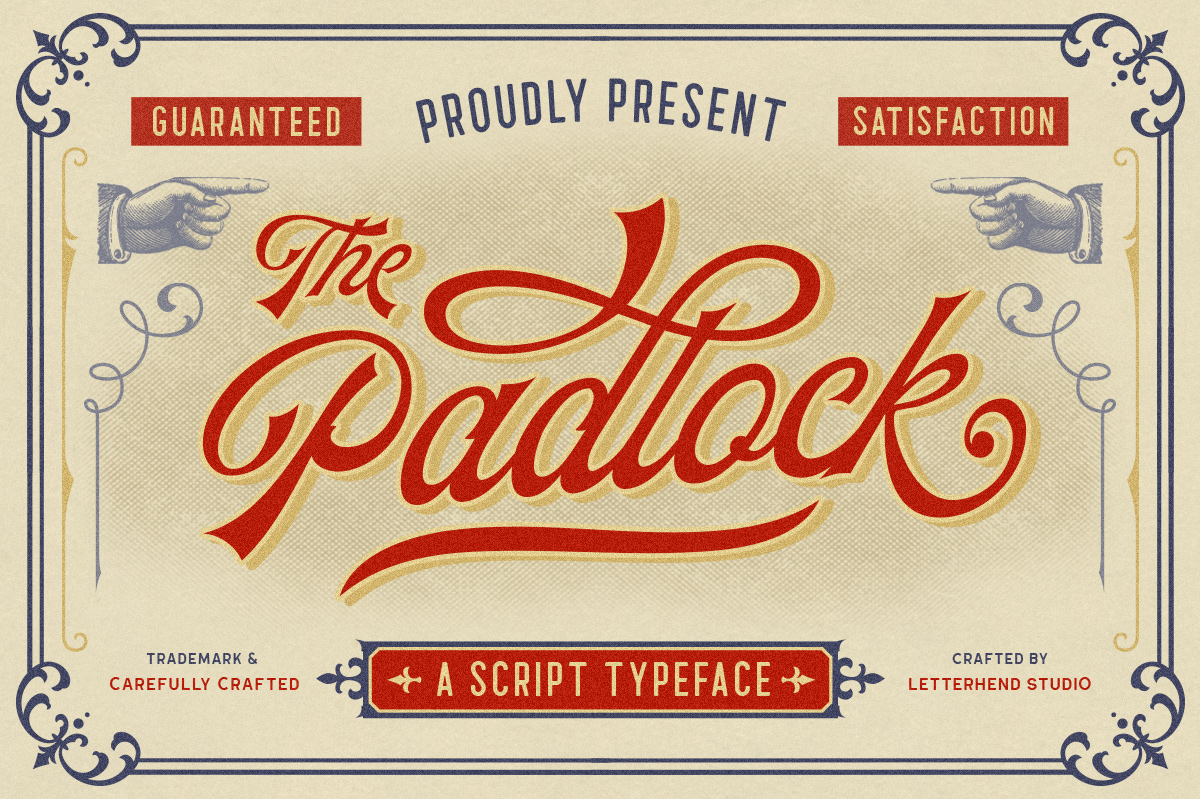
Padlock Font
Padlock Font is perfect for cybersecurity company branding, secure banking system interfaces, privacy protection service logos, security software packaging, encrypted communication platforms, secure vault company signage, digital security app designs, password management tools, secure data storage marketing, and privacy-focused technology presentations. This protective typeface brings trustworthy security to cybersecurity consulting firms, secure cloud storage services, digital privacy organizations, security hardware manufacturers, and confidential document management systems.
Padlock Font is exciting because it embodies the essential principles of security and protection through its robustly constructed letterforms that convey unbreakable strength and reliable safeguarding. The font features solid, fortress-like characters with secure proportions and protective details that evoke the reliability of premium security systems, the strength of reinforced protection, and the peace of mind that comes with guaranteed safety. Its distinctive construction demonstrates security engineering with carefully fortified elements that create an immediate sense of trust and protective reliability. The font's security-focused presence and protective authenticity make it perfect for brands seeking to communicate digital safety, data protection, and uncompromising security in their visual communications.
Padlock Font family includes various security-focused styles: Light, Regular, Medium, Bold, Black, Italic, Condensed, Extended, Secure, Protected, Encrypted, and Fortress variants. Each family member maintains the core security DNA while offering different levels of protection for diverse safety-focused design applications. The comprehensive font collection ensures consistent secure branding across cybersecurity campaigns, protection services, and safety communication materials.
Whether you're creating security brand identities, designing protection marketing materials, developing secure website headers, or crafting safety-focused promotional campaigns, Padlock Font delivers outstanding security appeal and protective authenticity. The font's distinctive secure personality excels in security logos, protection packaging design, safety applications, and cybersecurity projects where digital protection and security reliability are essential.